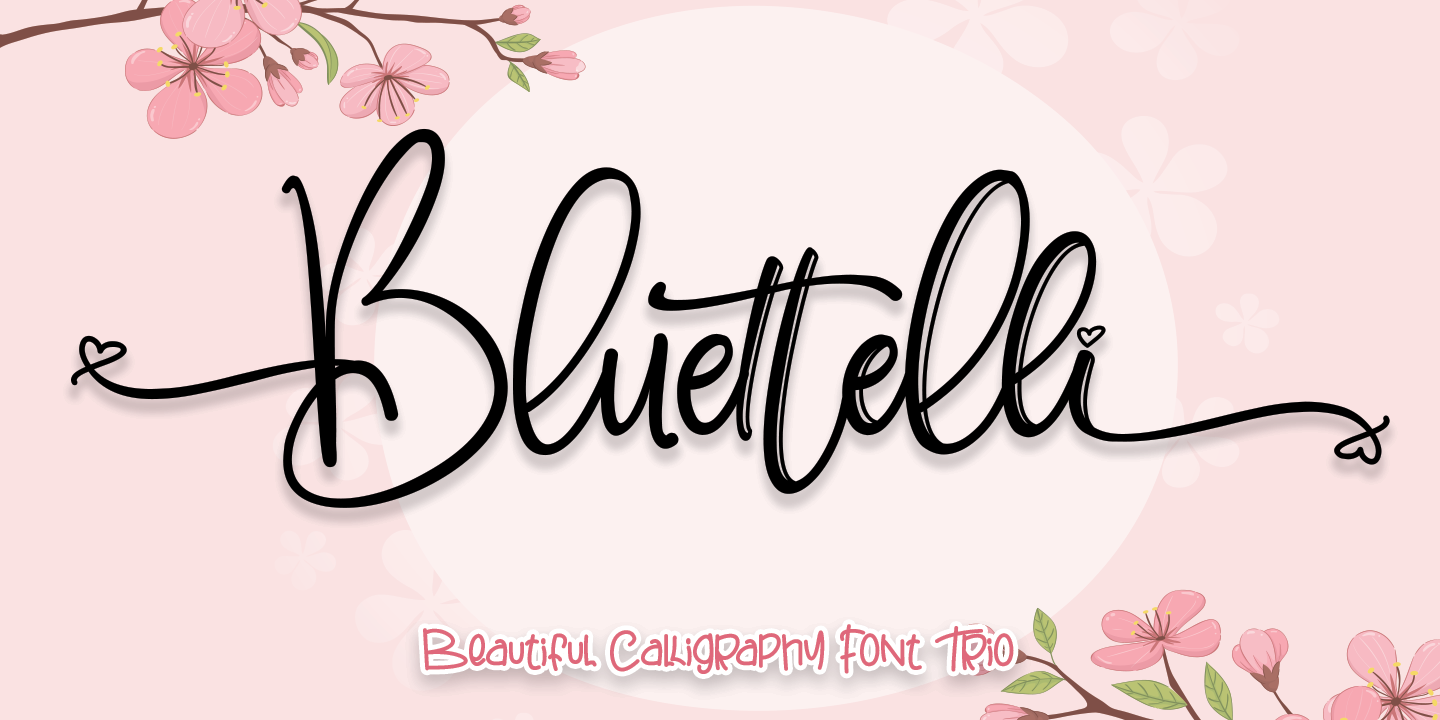
Bluettelli Font is ideal for luxury branding projects, wedding invitations, fashion magazines, beauty product packaging, high-end restaurant menus, boutique signage, cosmetic labels, jewelry branding, premium wine labels, and elegant editorial designs.
Bluettelli Font is exciting because it features sophisticated script letterforms with flowing curves and refined flourishes that create an atmosphere of luxury and elegance, making it perfect for brands that want to convey premium quality and timeless sophistication.
The Bluettelli Font family includes regular and bold weights with decorative alternates, stylistic sets, ligatures, and swash characters, providing designers with extensive customization options for creating unique and personalized typographic compositions.
For designers seeking to add refined elegance to their projects, Bluettelli Font Free Download delivers exceptional versatility and visual impact. This premium script typeface combines traditional calligraphy influences with contemporary design sensibilities, ensuring your text stands out with grace and distinction. The carefully crafted letterforms maintain perfect readability while offering the ornate beauty that makes this font an excellent choice for upscale branding and sophisticated design applications across both digital and print media platforms.